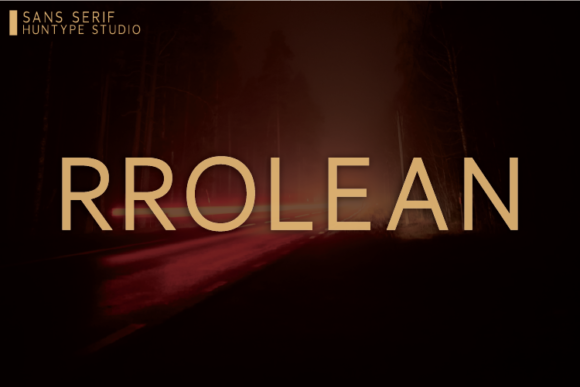
Unleash the Power of Rrolean: The Sans Serif Font That Transforms Digital Experiences
In a world where user experience (UX) reigns supreme, the choice of font can make or break your digital presence. Introducing Rrolean, the ultimate sans serif font meticulously crafted to elevate your UX designs to new heights. Prepare to captivate your audience with its sleek, modern aesthetic and unparalleled readability.
With Rrolean, you hold the key to creating seamless and intuitive user interfaces that effortlessly guide your visitors through their digital journey. Its clean lines and carefully balanced letterforms ensure effortless readability, even on the smallest of screens. Let Rrolean's understated elegance enhance your website, app, or digital product, leaving a lasting impression that keeps users engaged and coming back for more.
Step into a realm of creative possibilities with Rrolean, the font that adapts effortlessly to any project you can dream up. Its versatility knows no bounds, whether you're designing a captivating logo, crafting a stylish product label, or creating an unforgettable invitation. Unleash your imagination and let Rrolean's timeless appeal work its magic, transforming your designs into works of art that resonate with your audience.
With Rrolean by your side, you'll discover a world of opportunities to connect with your users on a deeper level. Its understated charm exudes professionalism and sophistication, inspiring trust and credibility. Embrace the power of Rrolean and watch as your digital creations captivate and engage, leaving an indelible mark on the hearts and minds of your users.